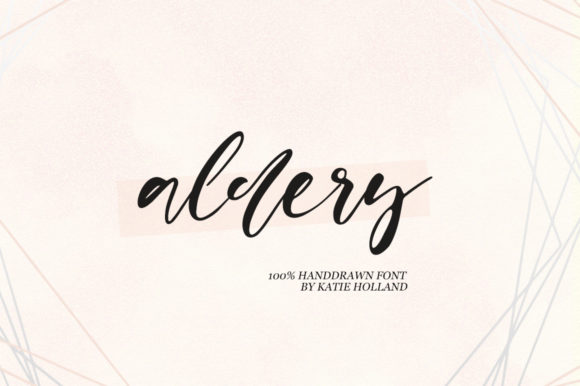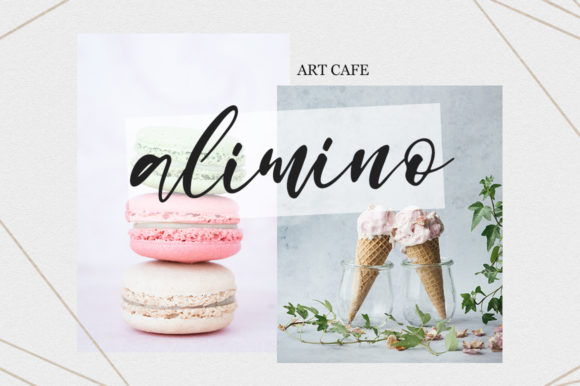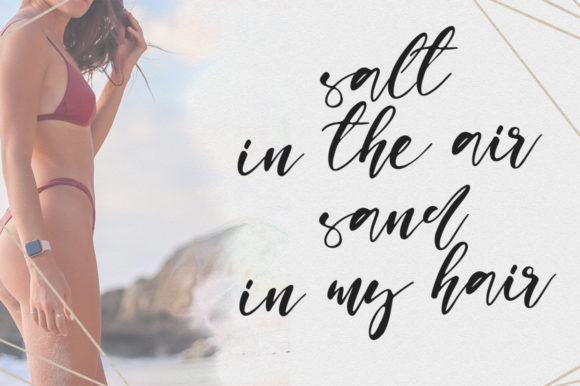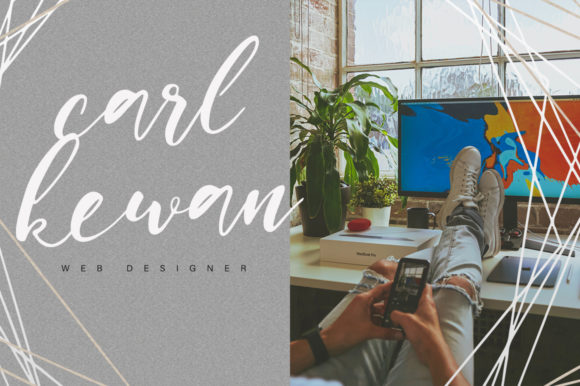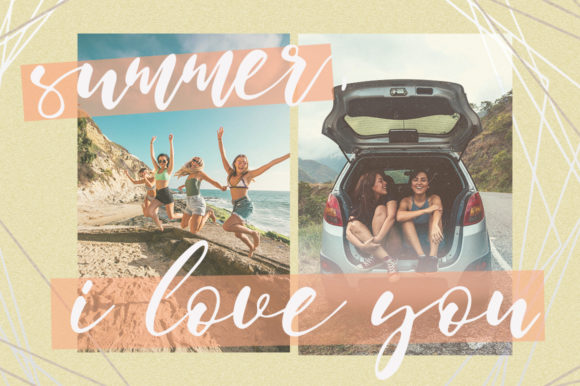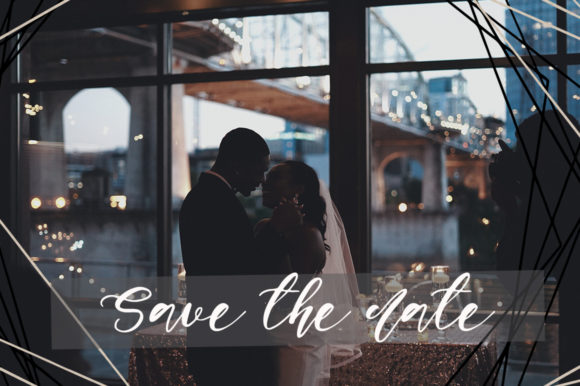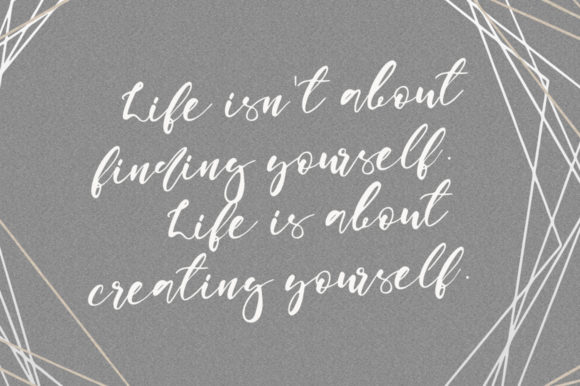
HomeScript FontsAldery Font Script Fonts Aldery Font FacebookXPinterestWhatsApp Aldery Font Poster 2 Aldery Font Poster 3 Aldery Font Poster 4 Aldery Font Poster 5 Aldery Font Poster 6 Aldery Font Poster 7 About Aldery Font Aldery is a beautiful and light handwritten font with lots of authentic charm! Get inspired by its beautiful feel. DOWNLOAD NOW People also explored Morning Qalbi Font Cafechic Font Luckystrikes Have Patience Font Delinhas Font Stephinest Font Craftsman Font Bigcake Font Fishing Font 324 0 TagsAldery Font Previous articleZebra Advert FontNext articleFind Your Purpose Font LEAVE A REPLY Cancel reply Comment: Please enter your comment! Name:* Please enter your name here Email:* You have entered an incorrect email address! Please enter your email address here Website: Save my name, email, and website in this browser for the next time I comment. Personal Use Free Built Tilting Personal Use Free Read more about this font Bukan Personal Use Free Read more about this font Nikoleta Personal Use Free Read more about this font Andolas Personal Use Free Read more about this font BLOG Top 7 Google Fonts Alternatives for Faster and Privacy-Friendly Web Design (2025) Top 7 Google Fonts Alternatives for Faster and Privacy-Friendly Web Design (2025) When it comes to web typography, Google Fonts has long been the go-to... Top 10 Handwritten Fonts That Elevate Your Designs Transform Your Website: Elevate Your Typography with 7 Best Web Font Generators Best Fonts for T-Shirt Design – Top 2025 Picks